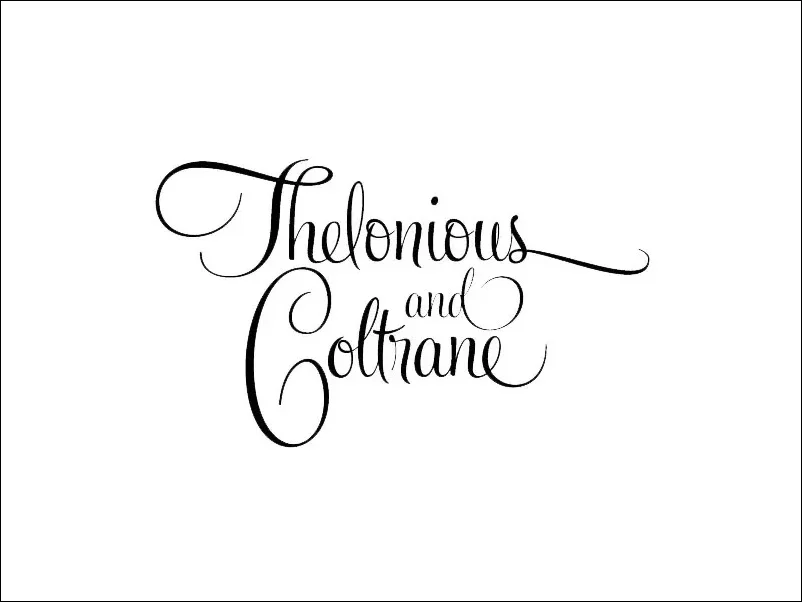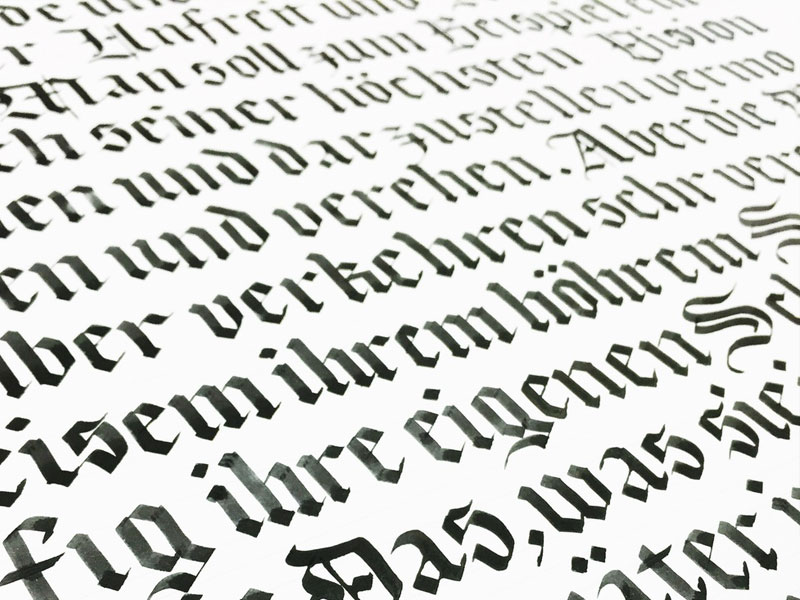
What are alphabet fonts? It is not easy to learn typography, but you can at least familiarize yourself with the history and types of alphabet typography styles to understand why the font is so large and how they were still made to look so different.
Alphabet Fonts Classification
Alphabet fonts classification depends on the era or specific features of each design and it can, therefore, help you narrow down the font choice to few most attractive options.
Distinguishing types of alphabet fonts styles can have a huge influence on your design decisions and help you discover the most suitable font for your project.
This post is, in fact, a short overview of font classification for serif and sans-serif solutions. It explains quite accurately how these types made it to the most-used list over the years.
Garalde Font (Old style)
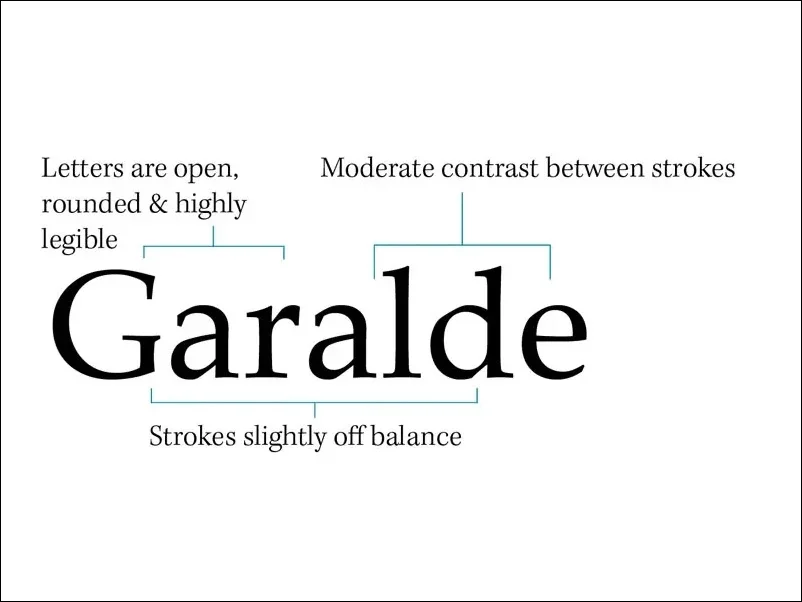
Typefaces are increasingly being carved to obtain a printable form, which has inspired many typographers to experiment with them and create their own fonts instead of using existing scripts.
Goudy Old Style and Garamond were created exactly in this way, which triggered the entire era of upright letterforms and clean crossbars instead of Humanist designs, which favored thick strokes.
Transitional Font
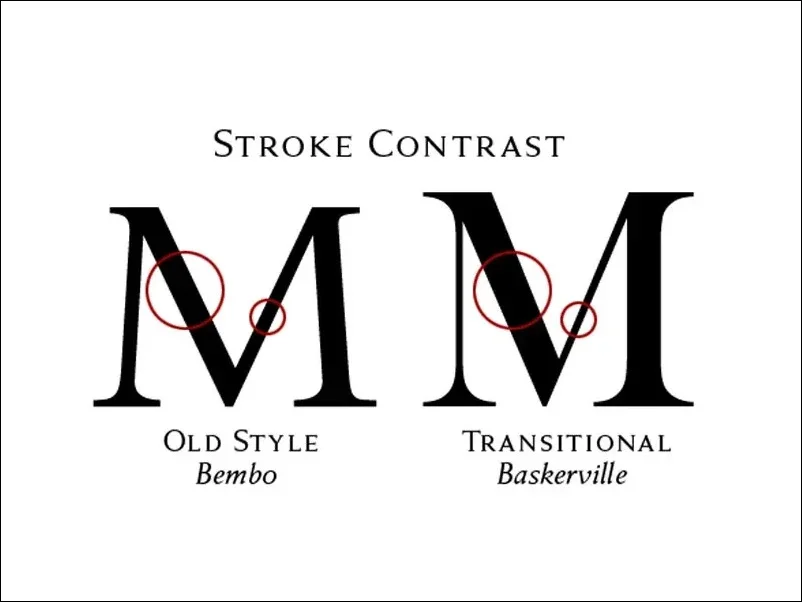
Among the different alphabet fonts, this style was developed by John Baskerville, an English typographer and printer who decided to deviate from old and traditional styles around the middle of the 18th century. His transitional approach opened the door to neoclassical designs and combined some of their best characteristics to improve printing methods.
Baskerville worked on the so-called calendared paper, which produced finer strokes and characters that could be easily reproduced and maintained. Transitional designs are recognizable by their curve stroke axis stressed vertically and a more pronounced weight contrast. Serifs there are slightly bracketed, while head serifs look oblique.
Didone (Modern)
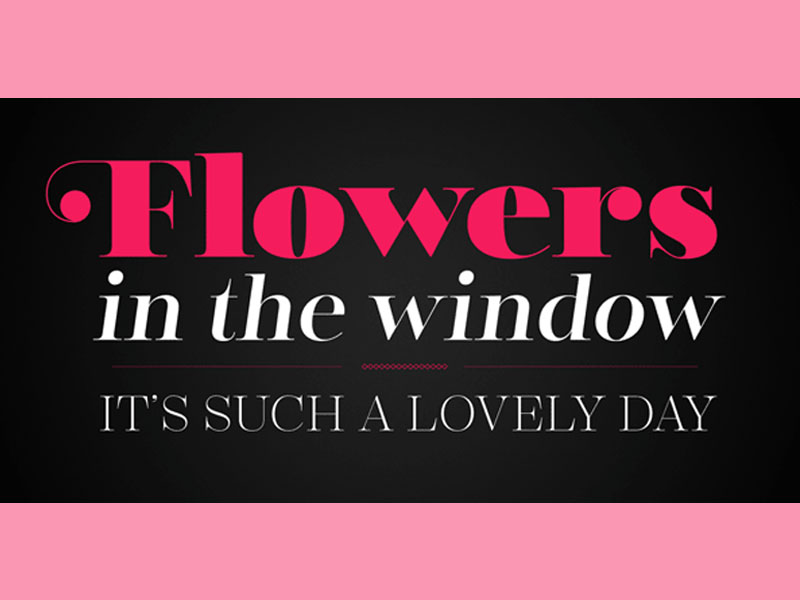
Most contemporary & modern fonts are noticeable by their strong features, such as thick vertical strokes instead of the thin and vertical ones, end-to-end striking contrasts, and lack of rounded elements. All letters are joined vertically, as the fonts appeared during the transition trend in the 18th century.
The Didone groups in France were the responsible developers, while Giambattista Bodoni from Italy was the first executor of the idea.
Alphabet Fonts: Slab serifs
The early 19th century brought slab serifs to the scene. This popular style for advertising and display features heavy serifs with minimal or no bracketing. It is difficult to imperceptibly change their weight, which is why many readers confuse them for sans serifs with heavy additions.
Alphabet Fonts: Sans serifs
In the first few centuries of typeface evolution, it was quite easy to follow developments and updates, but the transition from the 19th to the 20th century was a revolutionary explosion of ideas that produced many of the fonts we are still using today.
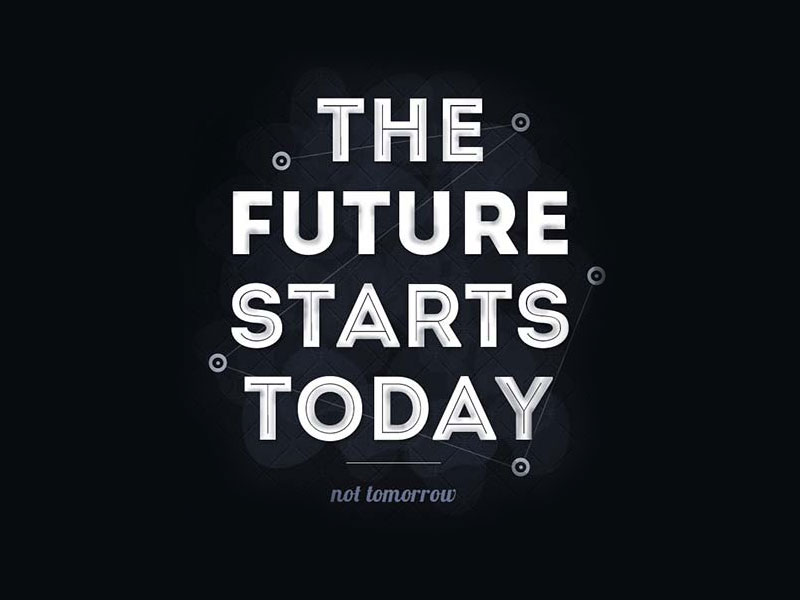
The handwritten characteristics disappeared in a glance, and new sans serif styles arrived under the spotlight to completely transform typing as we know it today. The focus was shifted for the first time towards modern and functional reading, where users could understand text even at longer distances.
Sans serifs are precisely a product of the 19th century, but it took them a while to become as popular as they are today. What sans serifs did was to exclude the serif (‘sans’ means ‘without’ when translated from French) and to deliver a flexible, simple, and usable solution entirely abstract to the standard letter alphabet.
Grotesque Sans Serifs
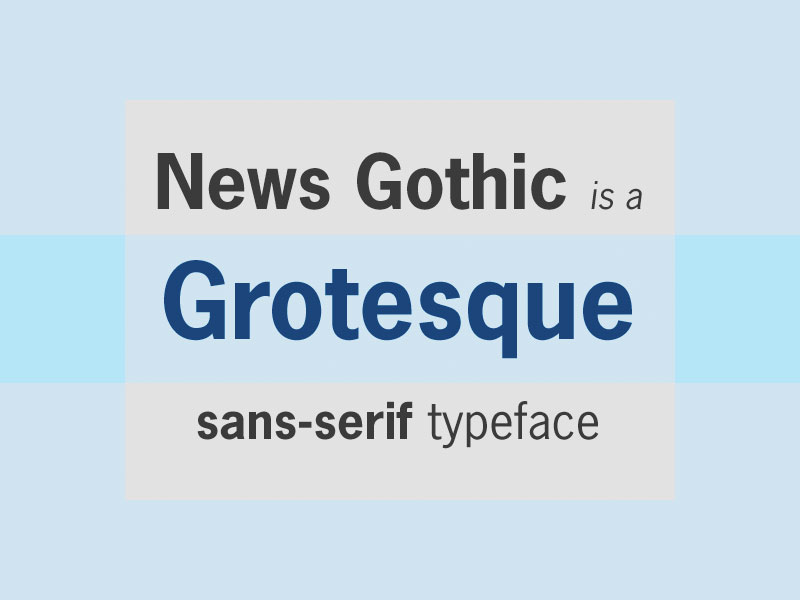
Grotesque Sans Serifs were the first types to gain commercial popularity, due to their stroke weight contrast that can be described as more squared than curbed, and the ‘bowl and loop’ designed lowercase g which reminds of Roman writing styles.
The R is also sometimes curled, while Gs have spurs. Other modern sans serif patterns are also present and arrived a bit later than the grotesque to calm contrast and round the overdone ‘squareness.’ More of the strokes were rounded, and monotone weight was less stressed.
Square Sans Serifs
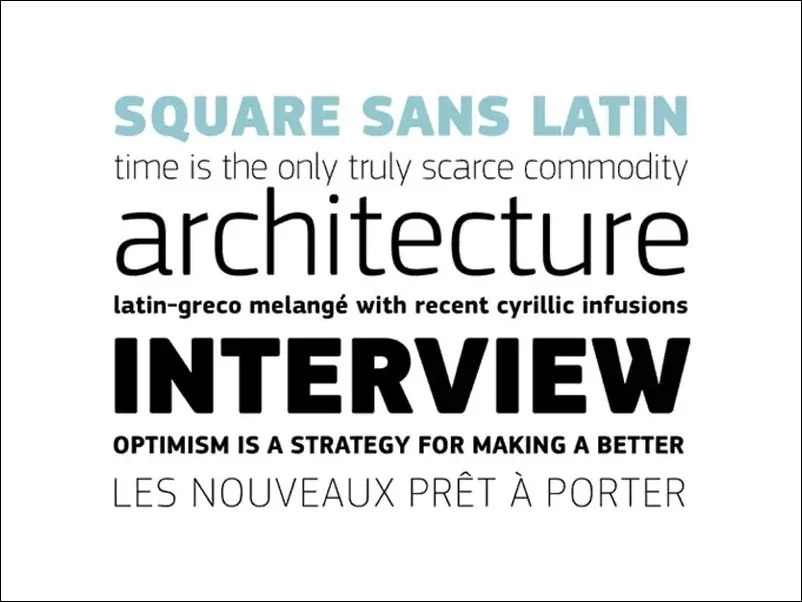
The grotesque-like proportion and trait are most common in these designs, even if squaring is much more definite and sometimes even dramatic. It was probably when latitude rounding started to disappear, and focus was transferred to character spacing to make texts more clearly displayed.
Geometric Sans Serifs
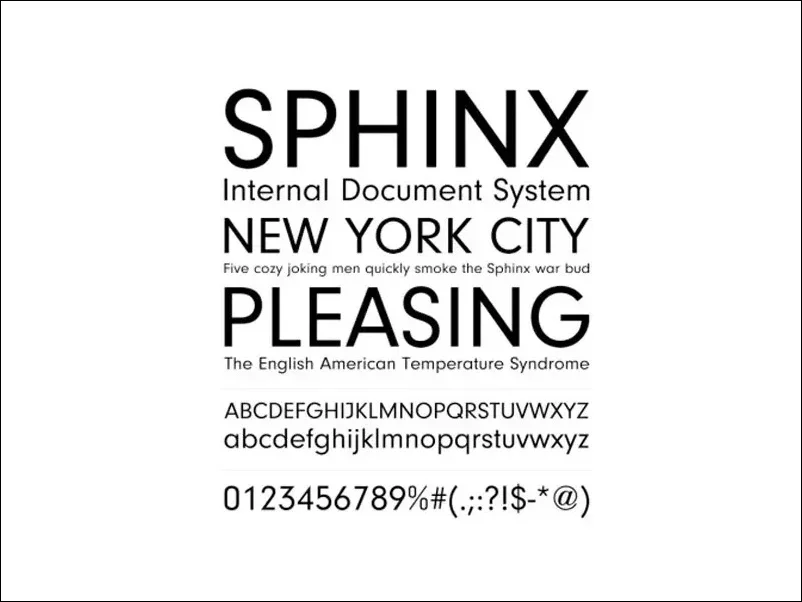
These typefaces are influenced by geometry’s simplicity. Lines seem clear and strict, and all shapes remind of specific geometric forms. Contrary to what one would expect, geometric types are more difficult to read than grotesques.
Final Thoughts On Types Of Fonts
We can’t be sure that this is the 100% reliable font classification and that nothing else you’ll read is correct, but it is still the result of hard work, experience, and dedicated research. We believe we included all types of letter fonts and particularities necessary to distinguish fonts and assign them to a specific alphabet font family. Still, we would be happy to hear something more from professional users.